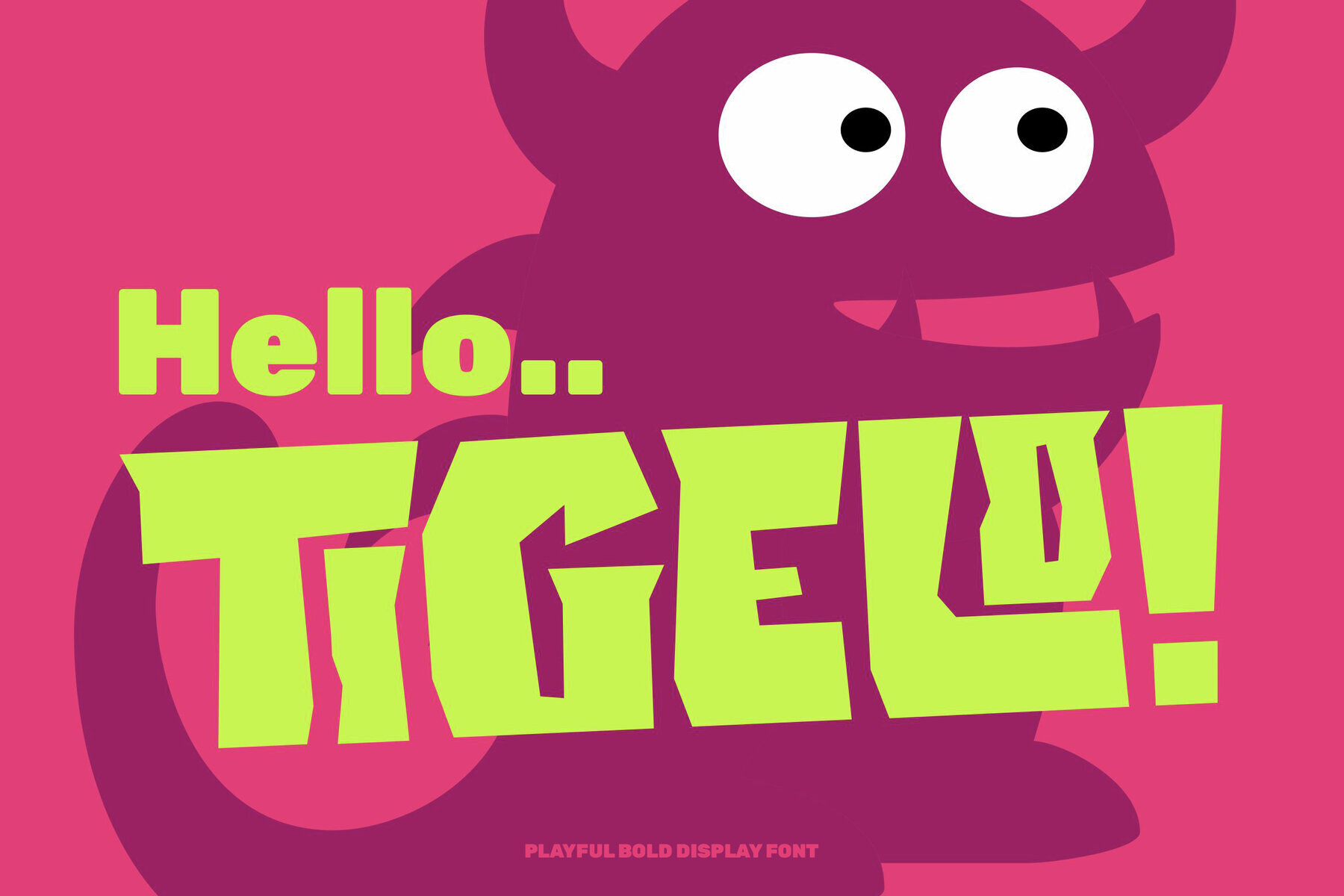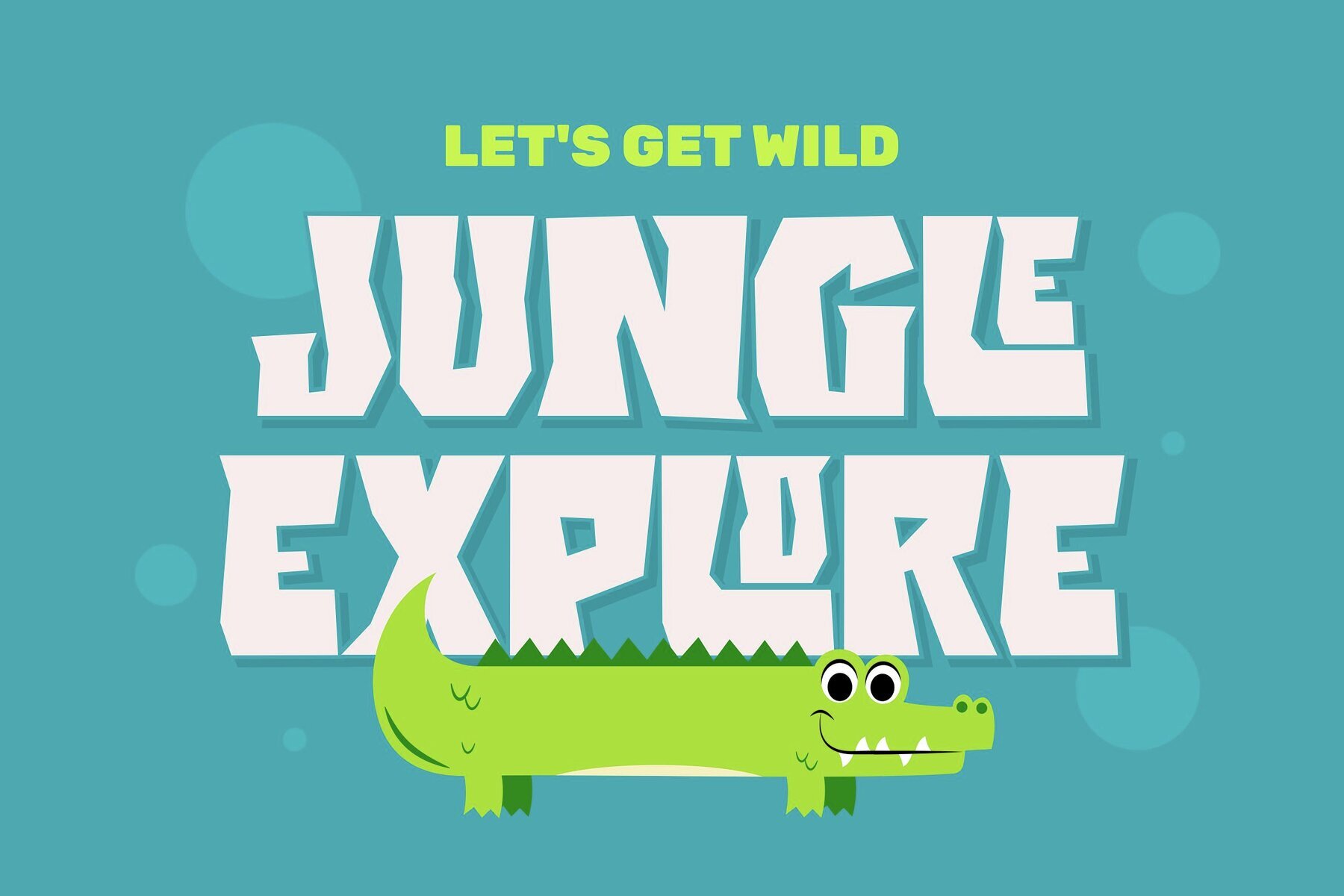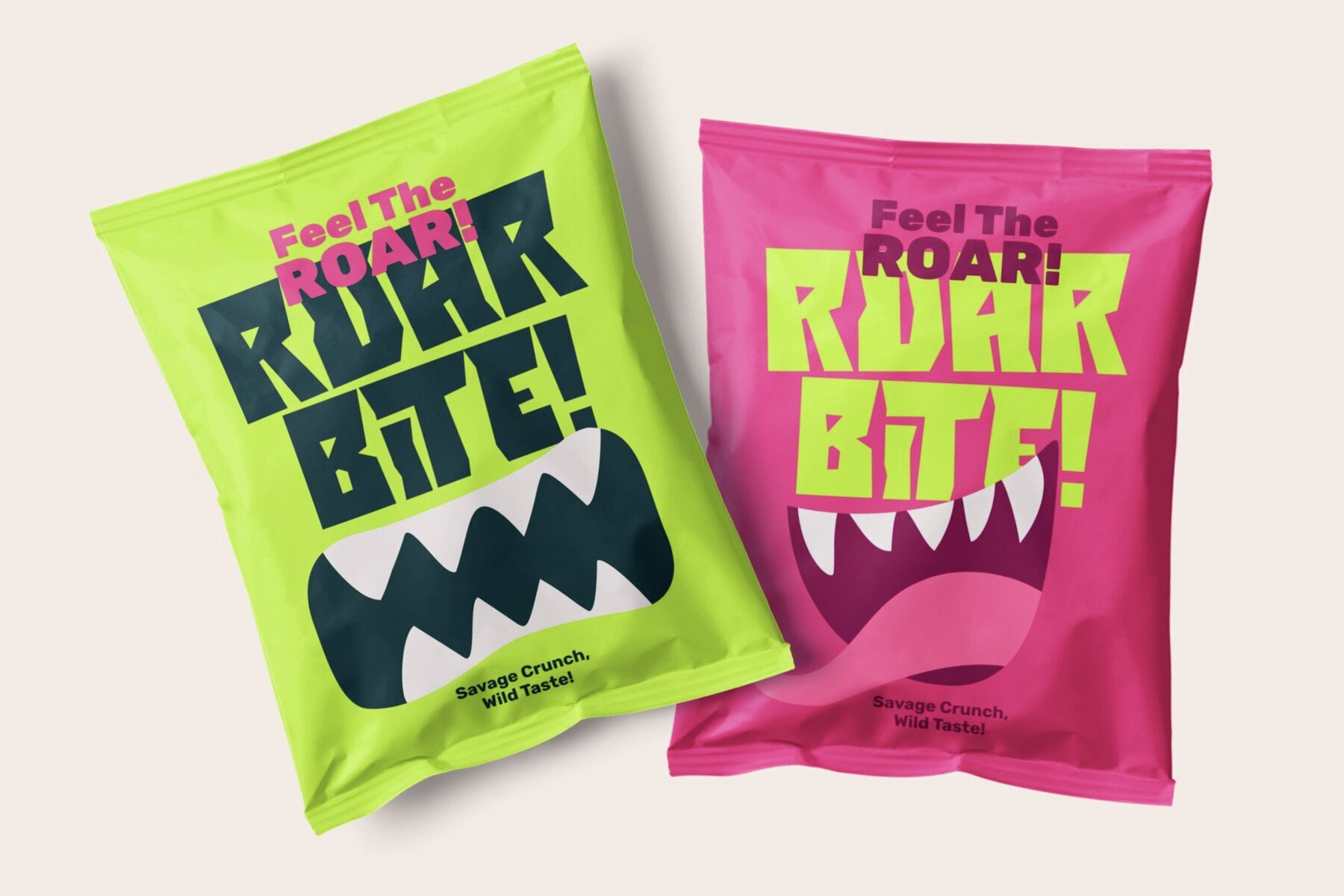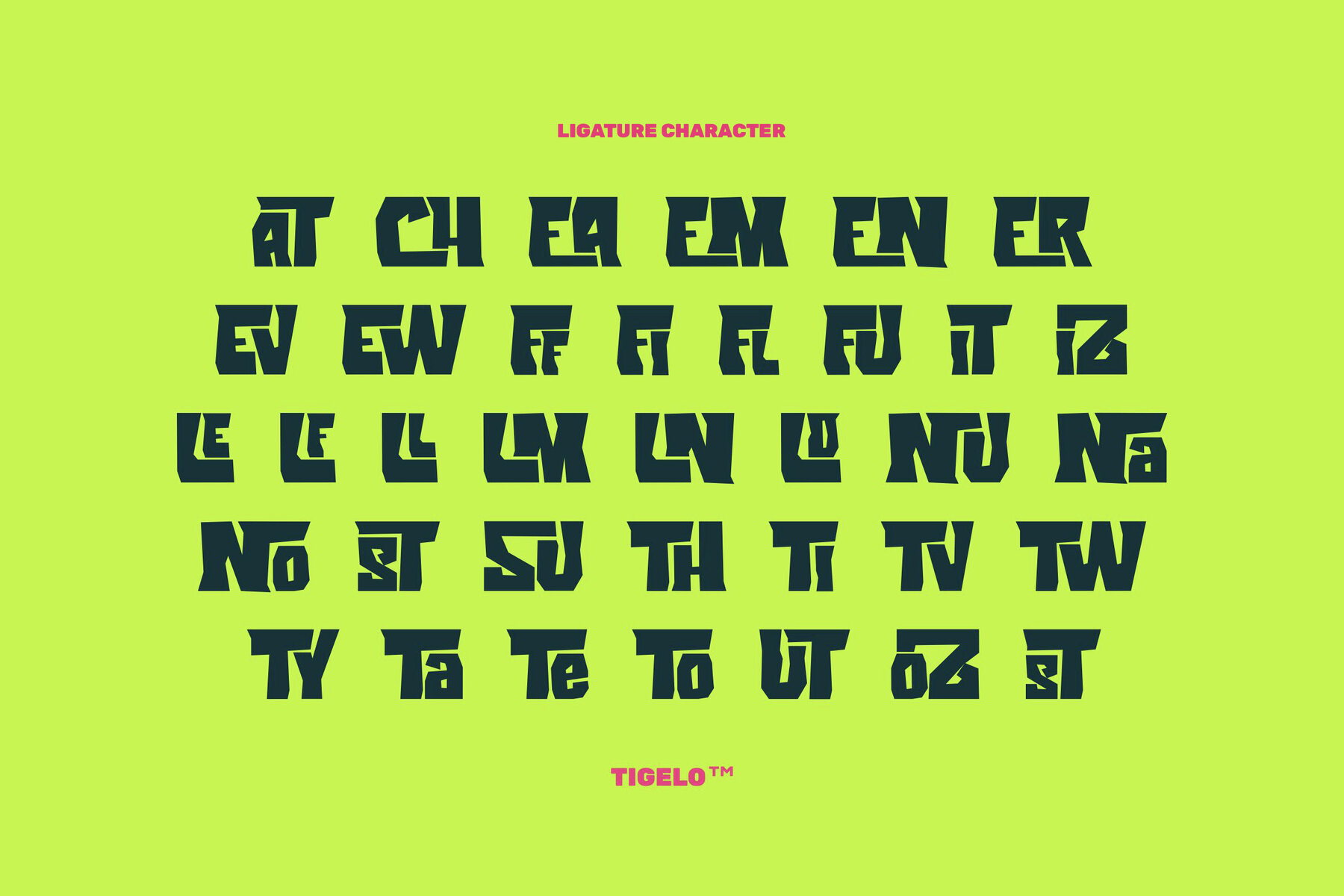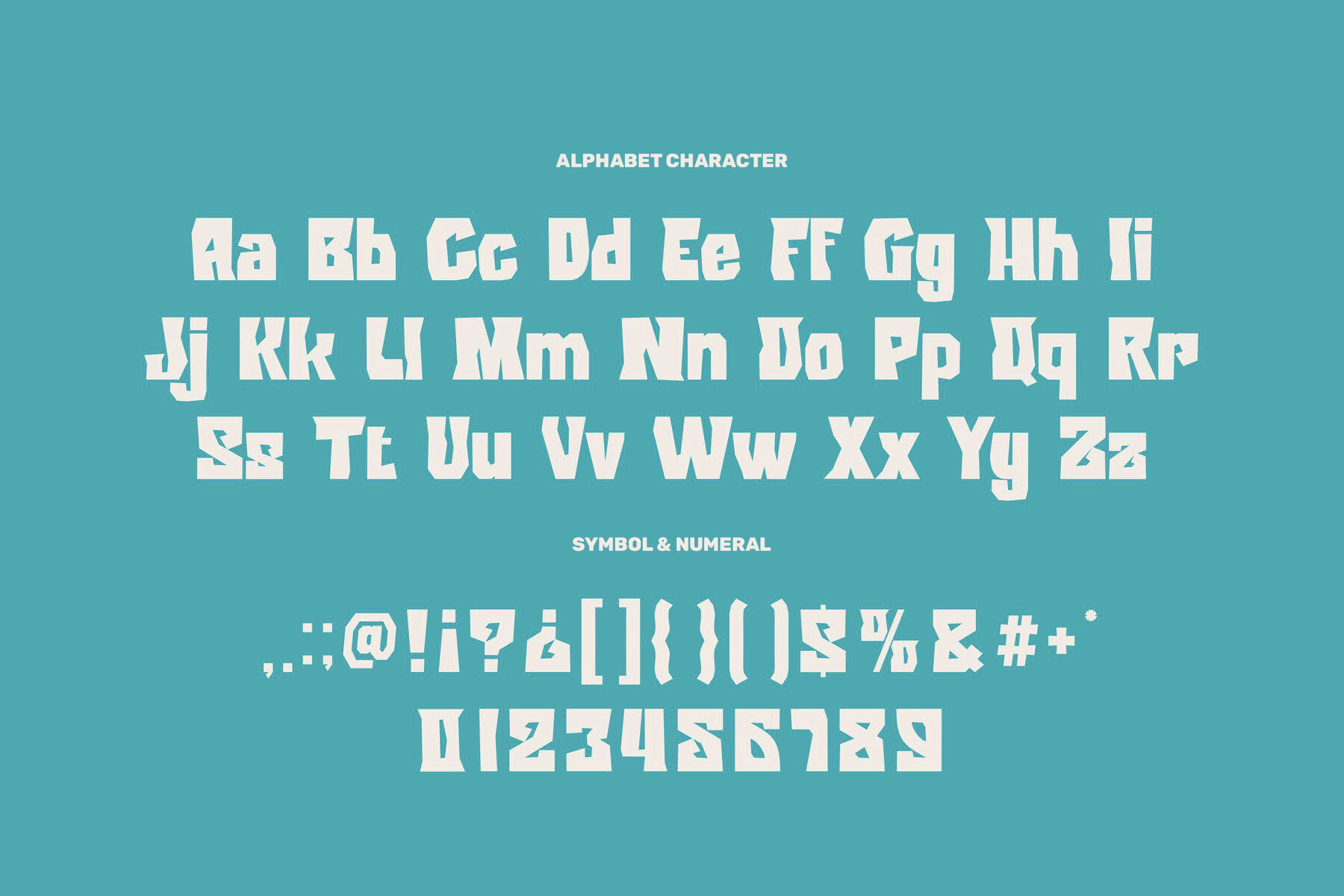
Tigelo Font
Tigelo Regular
Tigelo stands out with its confident, cartoon-inspired lettering, tailored for designs that call for fun and imagination. With thick strokes and lively curves, this font brings a joyful touch to any creative project. Its approachable style naturally draws the eye, making it ideal for engaging a younger audience. Perfect for a range of light-hearted applications, Tigelo brings personality to every word. Use it in children's books, school posters, animal-themed projects, or anything related to adventure and outdoor themes. Its style makes your message both memorable and accessible.Tigelo – Bold Kids Font with Playful Character